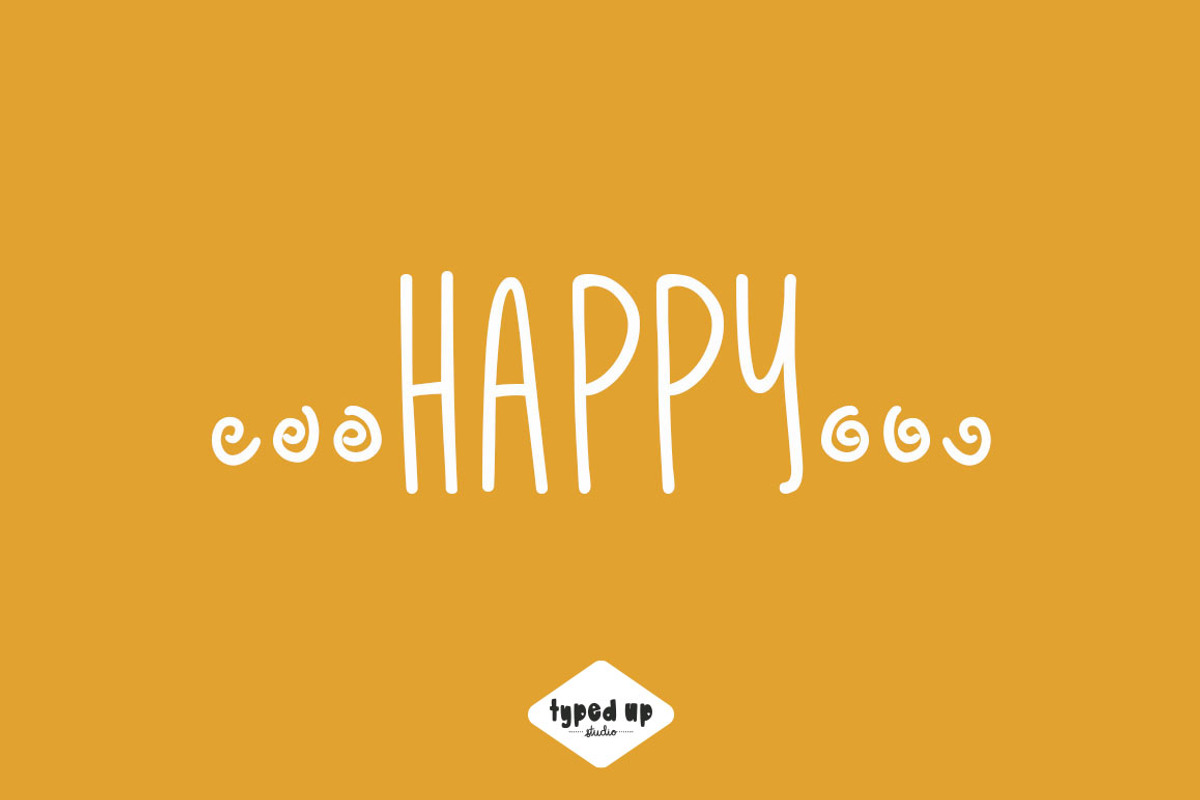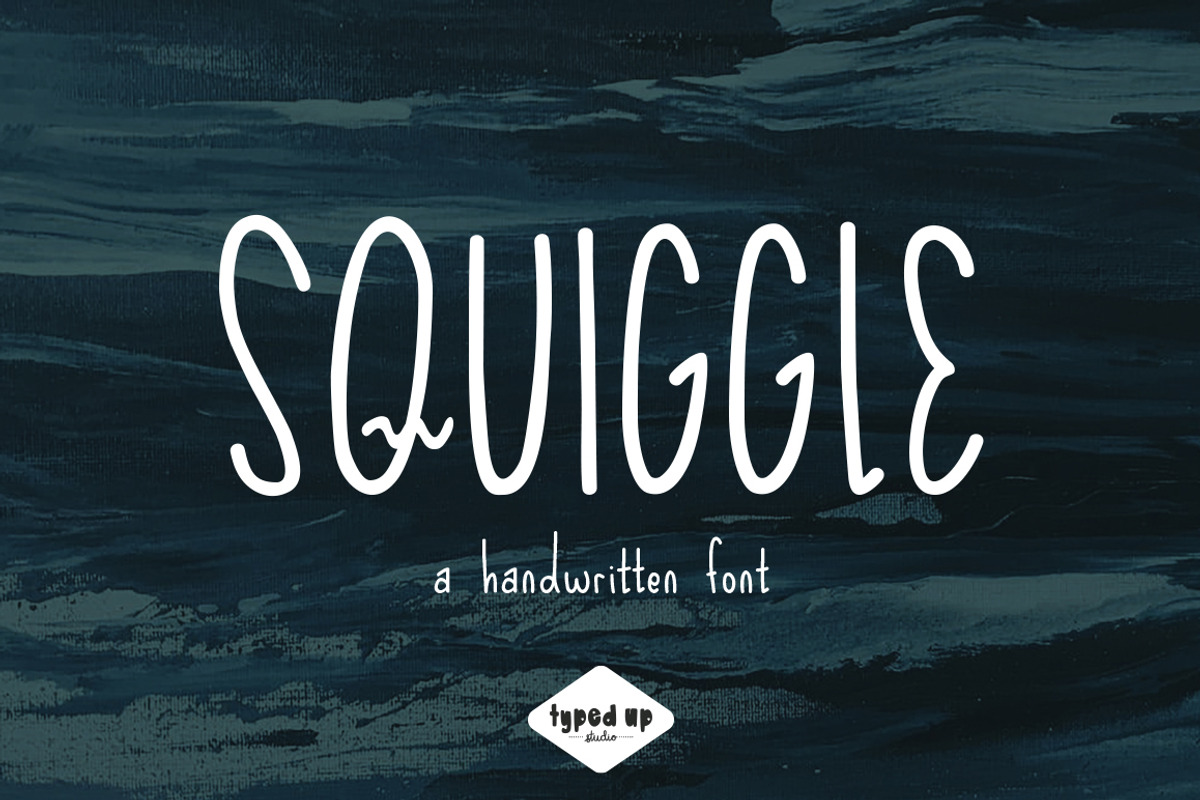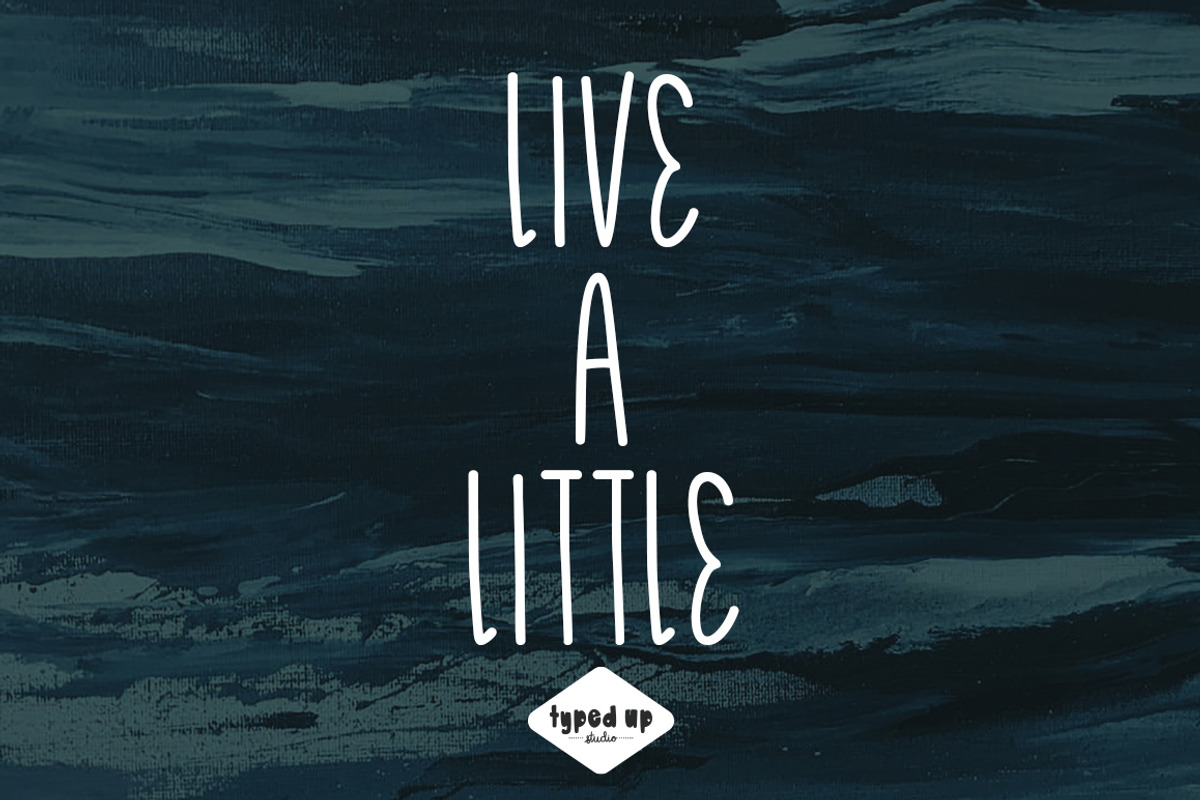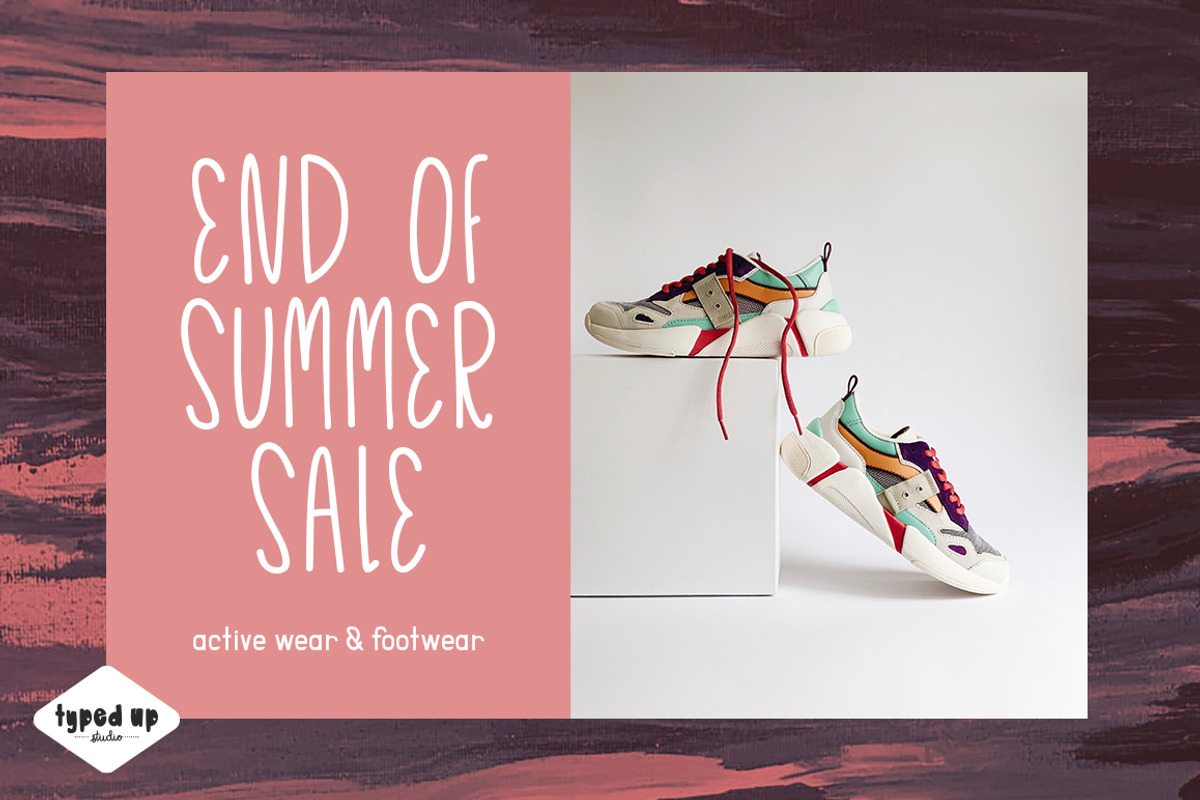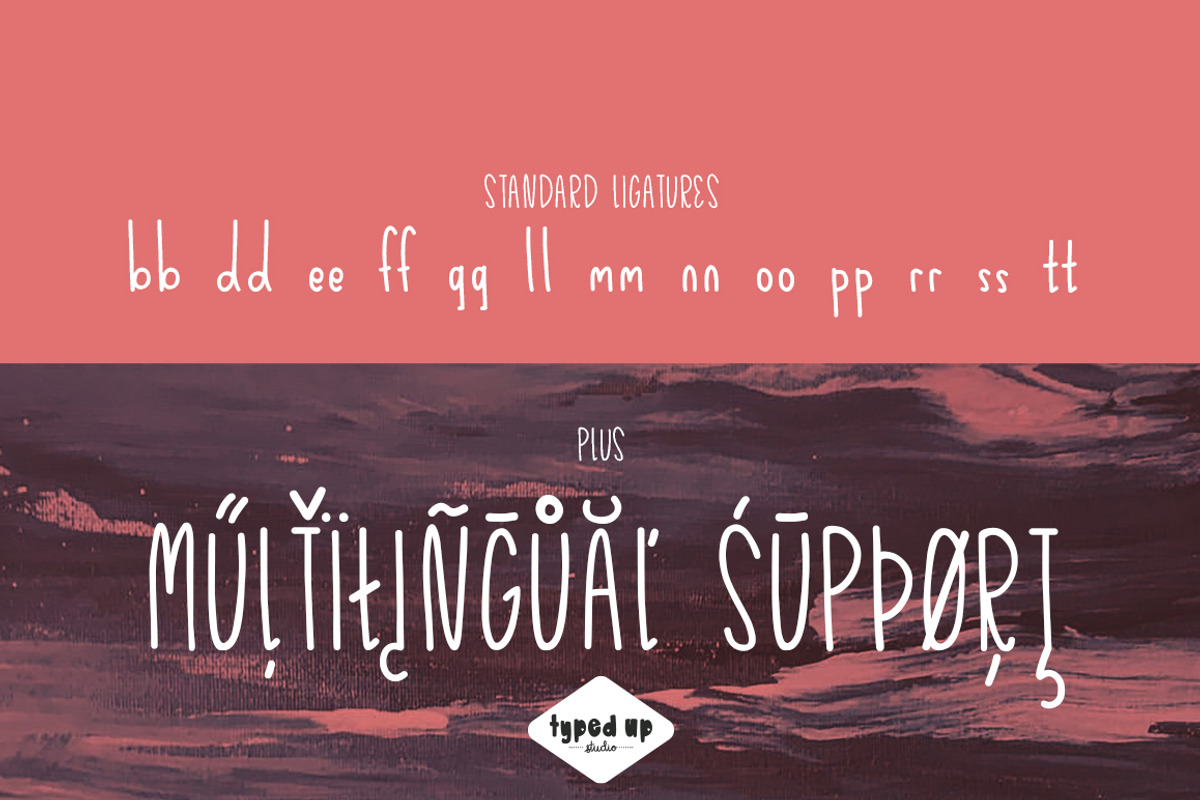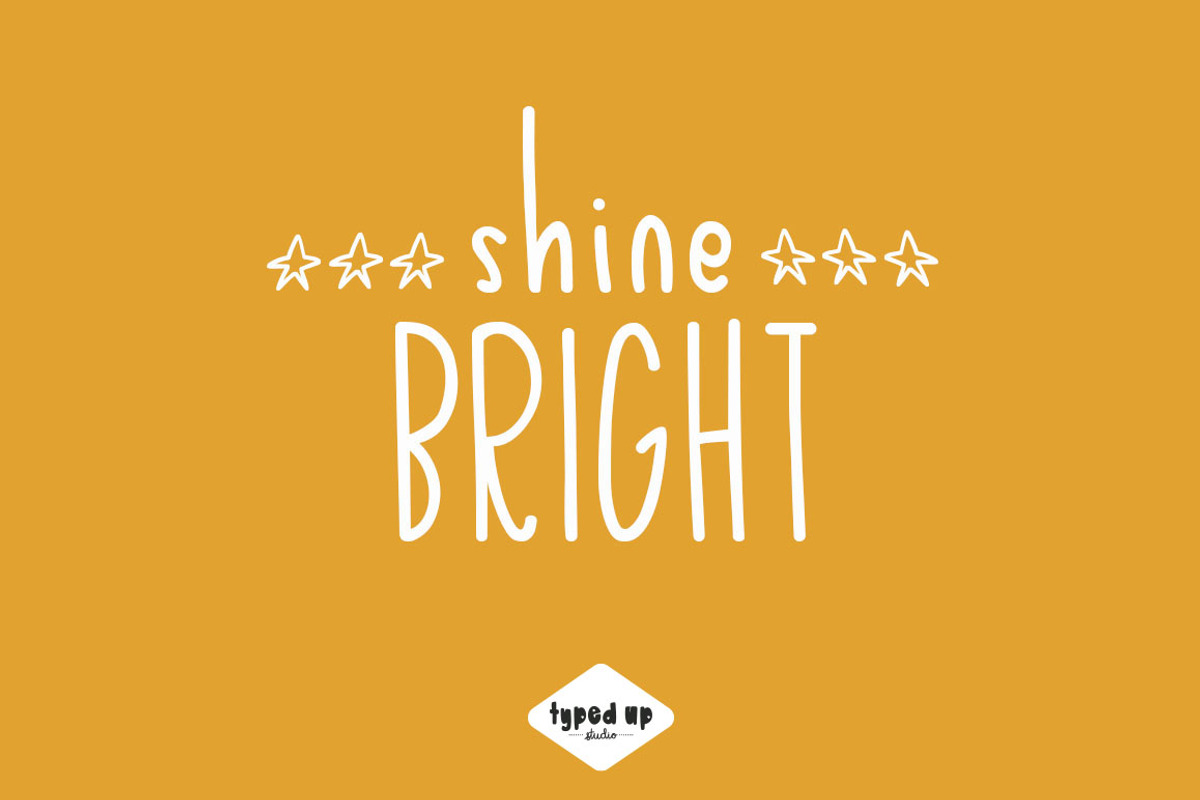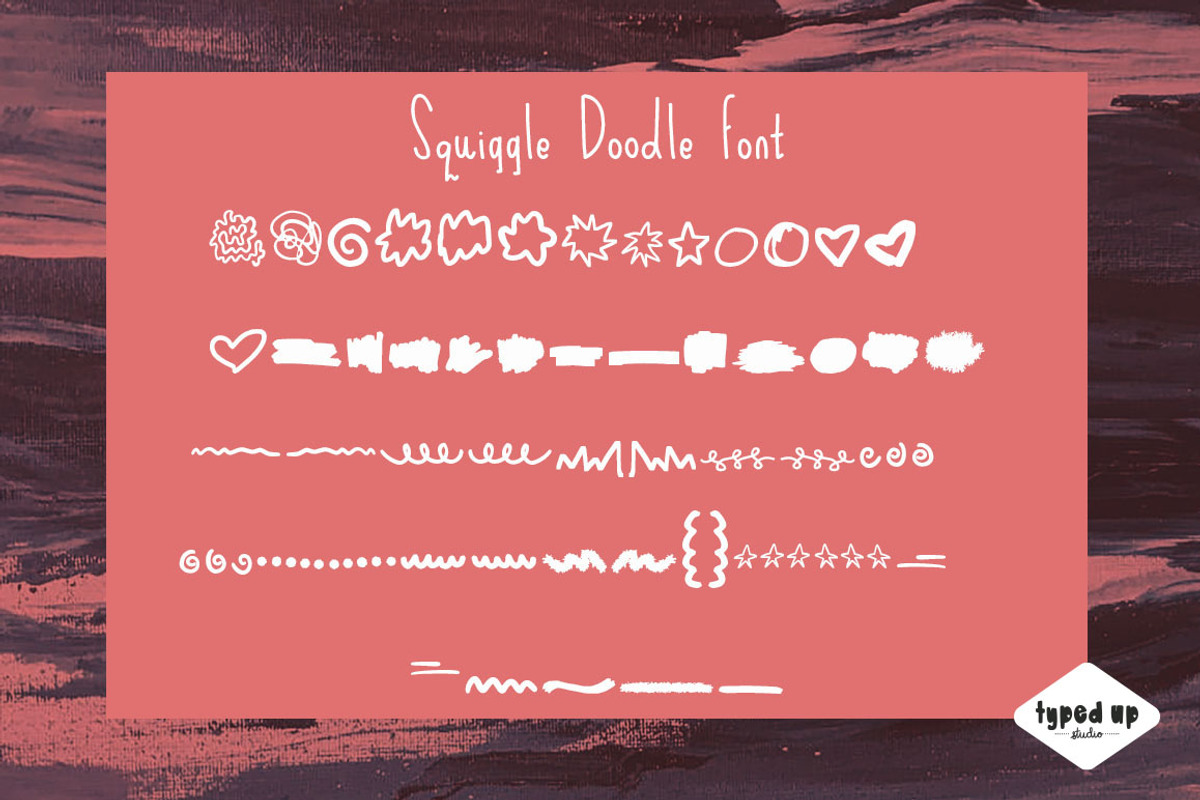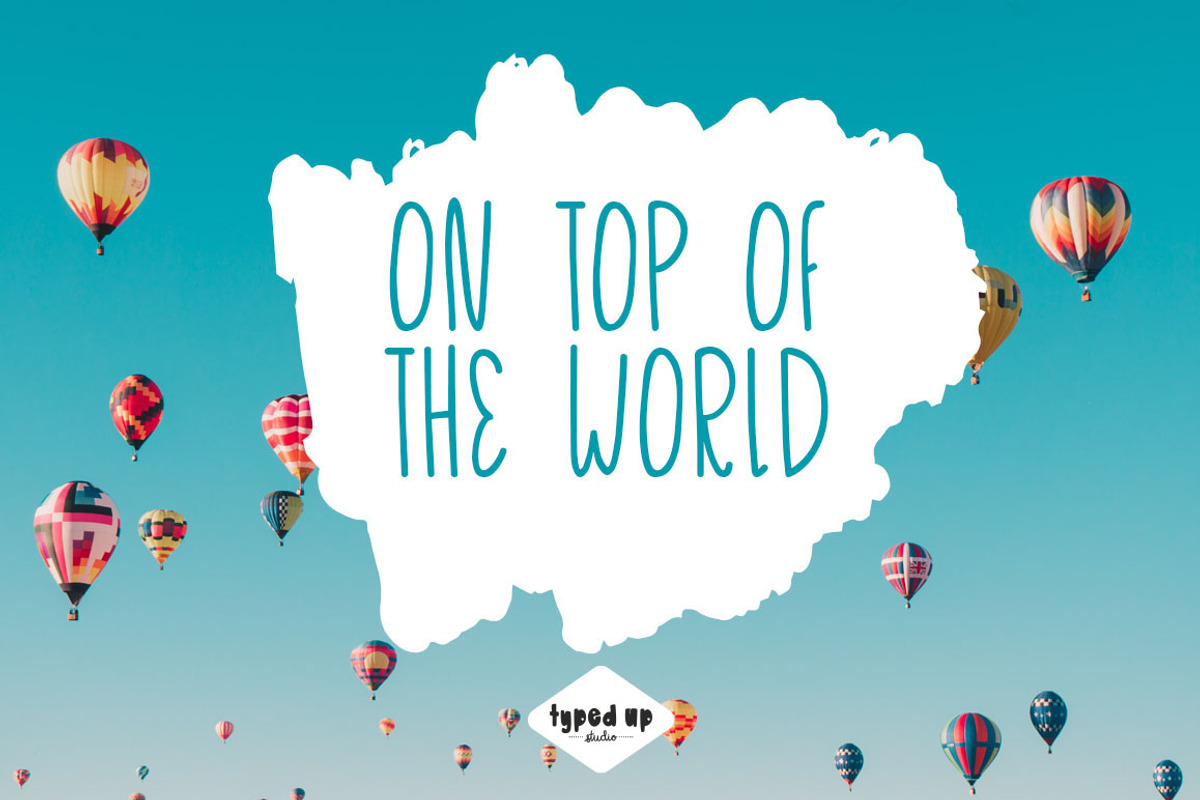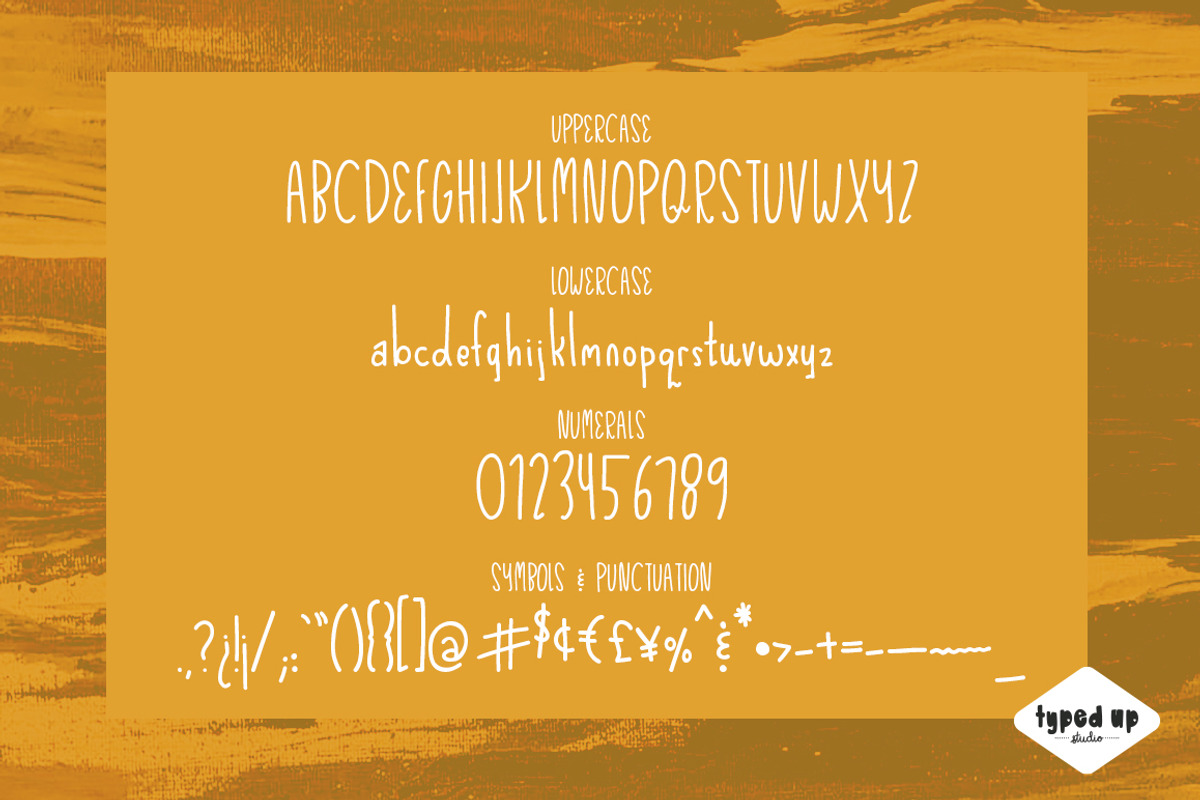
Squiggle | Handwritten Font
Squiggle is a playful handwritten font with pops of fun sprinkled throughout. This font features full European & South American language support, however, please try your text in the testing tool above to make sure the characters you need are available.
Squiggle also features 13 ligatures that will add uniqueness to your type and have people wondering if this is truly handwriting or a font.